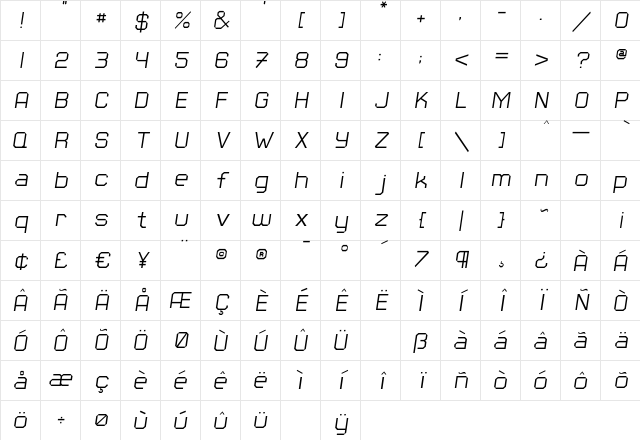
Complete Square45 Thin Italic glyph index. Displaying only characters natively supported by Square45 Thin Italic font.
Square45 is a composed and adaptable typeface that performs quietly and consistently across a wide range of design contexts. The slanted form adds forward momentum and visual energy. Its slender proportions lend an understated elegance to any composition.
Pro Tip: Use Square45 for emphasis, pull quotes, and subheadings where its slanted energy can add rhythm to the layout.